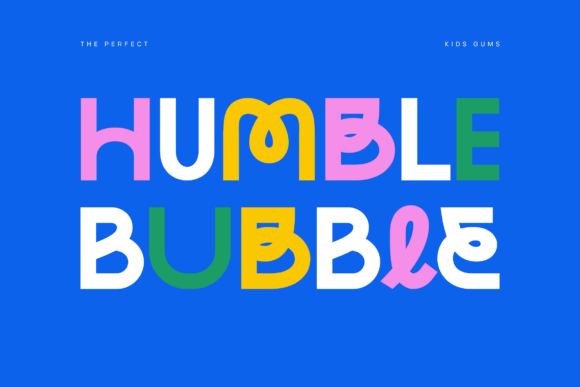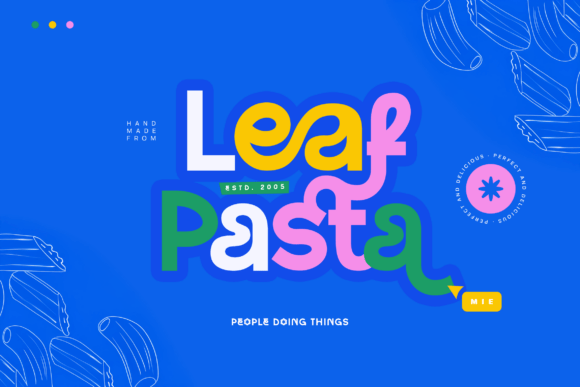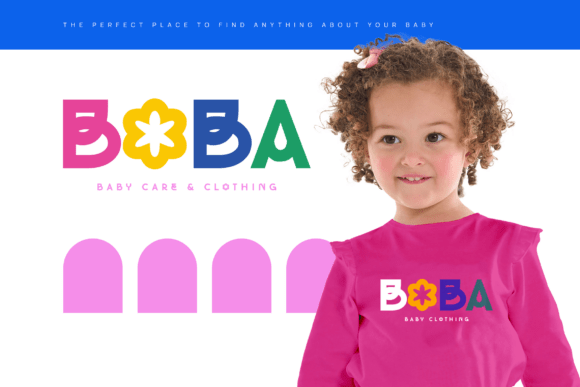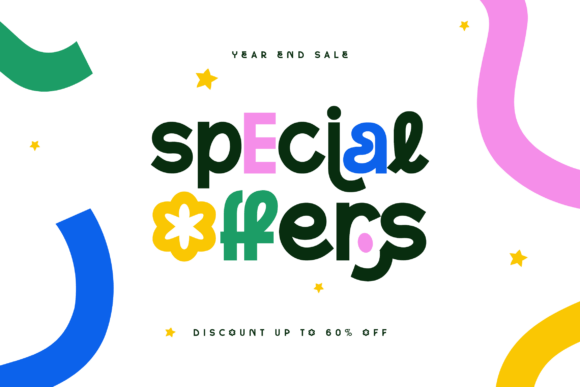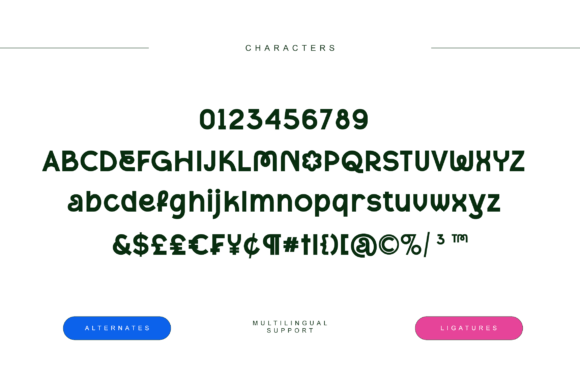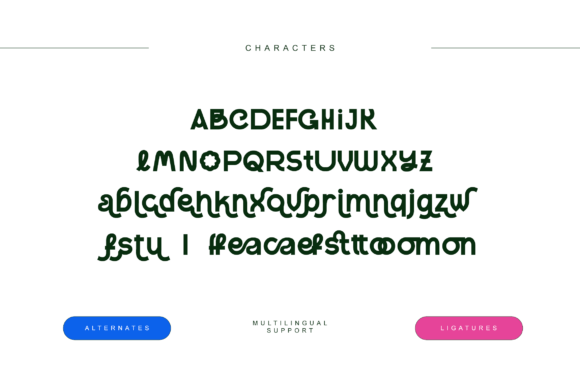
Meet Clayful: The Modern Typeface that’s a Game-Changer for Designers
In the world of typography, a new font can be a game-changer. It’s a chance to breathe new life into your designs, to make a bold statement, and to stand out from the crowd. If you’re a designer, brand creator, or typography enthusiast, you’re in luck. Say hello to Clayful, the modern typeface that’s about to take your designs to the next level.
What is Clayful?
Clayful is a fresh, playful, and modern typeface that’s designed to bring a burst of creativity to your designs. With its unique and eye-catching style, Clayful is the perfect way to add some fun and flair to your work. Whether you’re designing a logo, creating a brand identity, or simply looking for a new way to express yourself, Clayful is the perfect choice.
The Characteristics of Clayful
So, what makes Clayful so special? Here are just a few of the characteristics that set it apart:
- Fresh and Playful: Clayful has a youthful energy that’s hard to ignore. Its playful vibe makes it perfect for designs that need a bit of personality.
- Modern and Bold: With its clean lines and bold shapes, Clayful is a font that’s not afraid to make a statement.
- Versatile: Whether you’re designing a logo, a website, or a social media graphic, Clayful is versatile enough to fit any design need.
- Easy to Read: Despite its bold and playful style, Clayful is surprisingly easy to read, making it perfect for body text as well as headlines.
Why Choose Clayful?
With so many fonts to choose from, why should you choose Clayful? Here are just a few reasons:
- Stand Out: In a world of bland and boring fonts, Clayful is a breath of fresh air. Its unique style is guaranteed to make your designs stand out.
- Add Personality: With Clayful, you can add a bit of personality to your designs. Whether you’re designing for a brand or for yourself, Clayful is the perfect way to express yourself.
How to Use Clayful
So, how can you use Clayful in your designs? Here are a few ideas:
- Logos: Use Clayful to create a bold and eye-catching logo that’s guaranteed to turn heads.
- Branding: Add some personality to your brand identity with Clayful. It’s perfect for creating a unique and memorable brand voice.
- Social Media Graphics: Use Clayful to create eye-catching social media graphics that are sure to grab attention.
- Web Design: Add some fun and flair to your website with Clayful. It’s perfect for creating bold and eye-catching headlines.
In conclusion, Clayful is a modern typeface that’s a game-changer for designers. With its fresh, playful vibe, Clayful is the perfect way to add some fun and flair to your designs. Whether you’re a designer, brand creator, or typography enthusiast, Clayful is the perfect choice. So why wait? Give Clayful a try today and see the difference it can make in your designs.